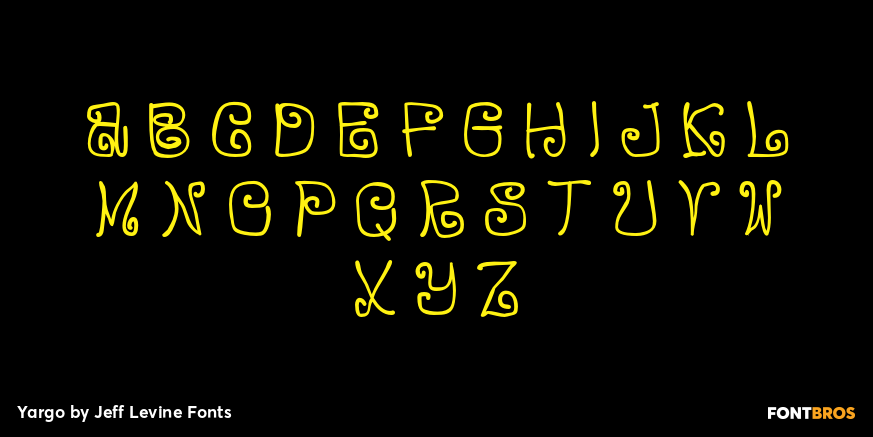
Yargo
A little funky, a little fun and thoroughly unusual - this is the best way to describe Yargo JNL. This novelty font is best used in short phrases and at large point sizes. No kerning has been added so the letters can retain their hand-made look and feel.